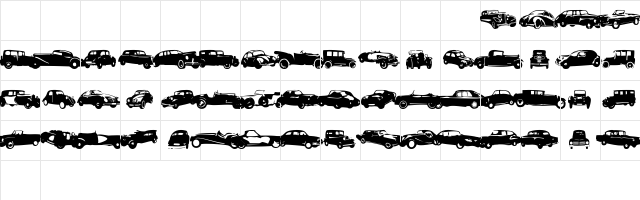
LTHarryCars Regular Free Font
LTHarryCars Regular
LTHarryCars Family
Design Context for LTHarryCars
LTHarryCars is a composed and adaptable typeface that performs quietly and consistently across a wide range of design contexts.